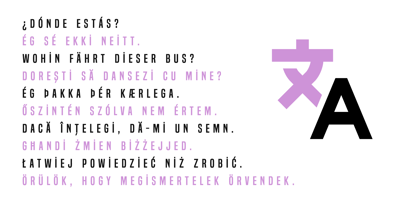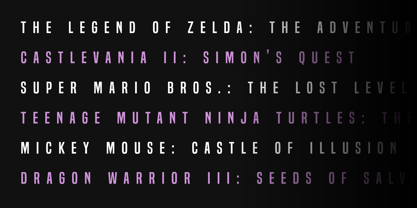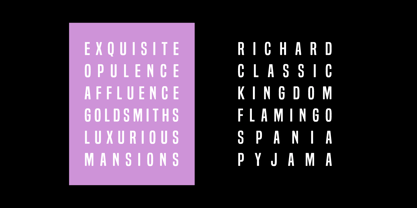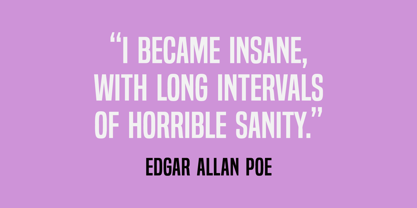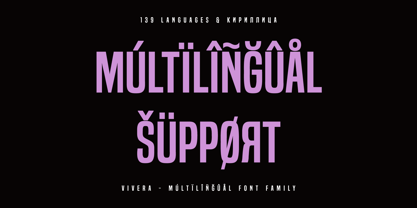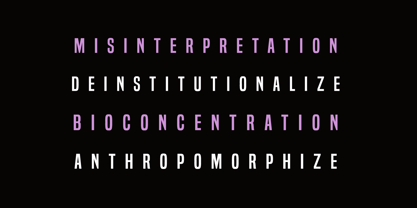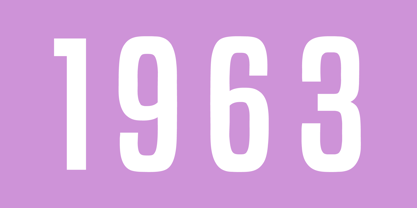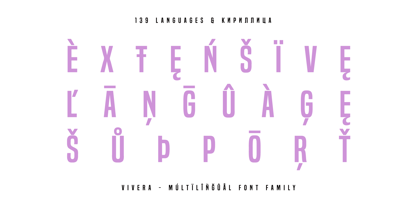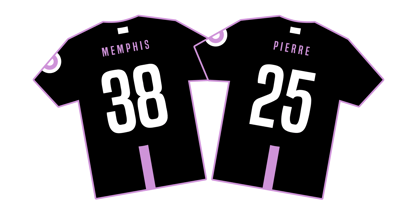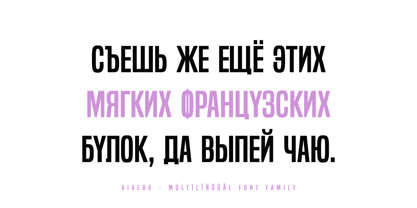
Vivera
par AlperCakici
La famille de polices Vivera a été conçue par Alper Çakıcı et publiée par AlperCakici. Vivera contient 40 styles et options de package familial. En savoir plus sur cette famille
Vivera is a bold display sans-serif typeface crafted for powerful titles and high-impact headlines. Inspired by the confident presence of styles like Bebas and Bebas Neue, Vivera brings its own distinctive energy through clean geometry, strong proportions, and tightly spaced uppercase forms. Designed for attention-grabbing communication, Vivera delivers clarity and character in equal measure. Its structured letterforms create a commanding visual rhythm, while the carefully balanced spacing ensures maximum impact in posters, branding, packaging, editorial headlines, social media graphics, and logo design. Vivera goes beyond a standard headline font. The family includes a wide range of expressive styles, allowing designers to shift tone without losing consistency. From clean and modern to textured and handcrafted, Vivera adapts effortlessly to bold creative direction. Family Features Strong, condensed display proportions Clean sans-serif construction Tight uppercase spacing for headline impact Multiple stylistic interpretations Ideal for branding, posters, packaging, and editorial design Whether you need sharp and modern, rounded and friendly, or textured and expressive, Vivera provides a cohesive system for bold typography. Vivera is built for designers who want headlines that speak loudly, clearly, and confidently.